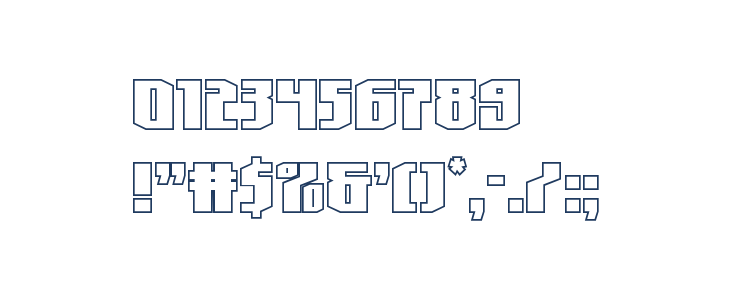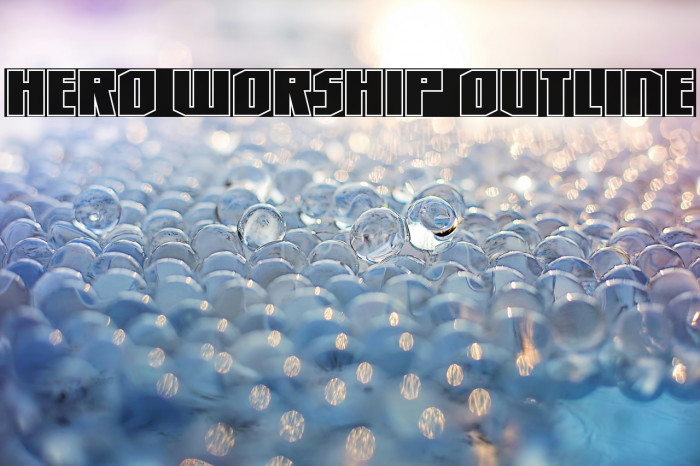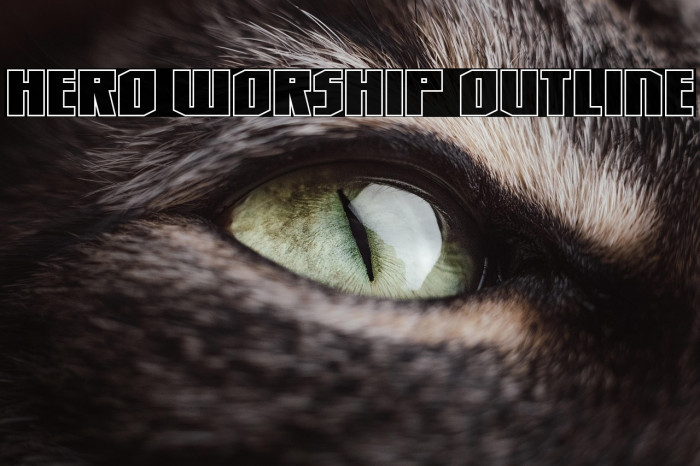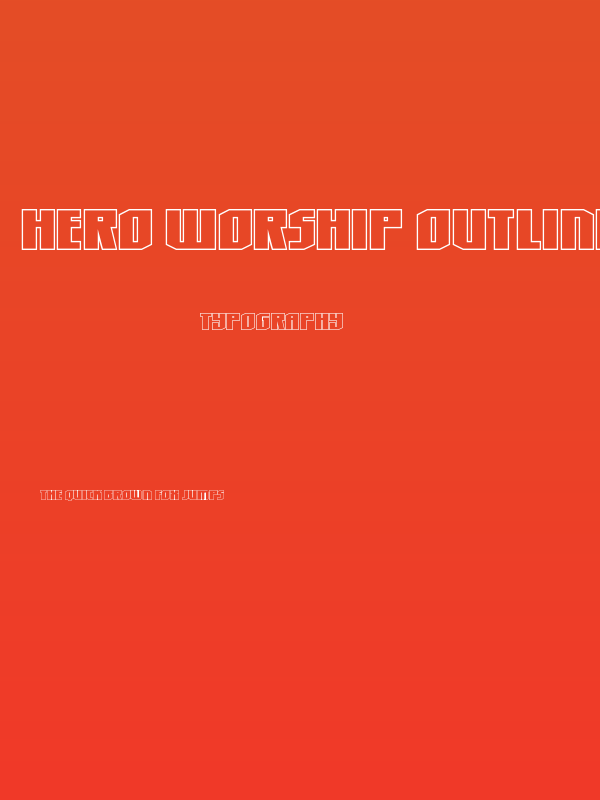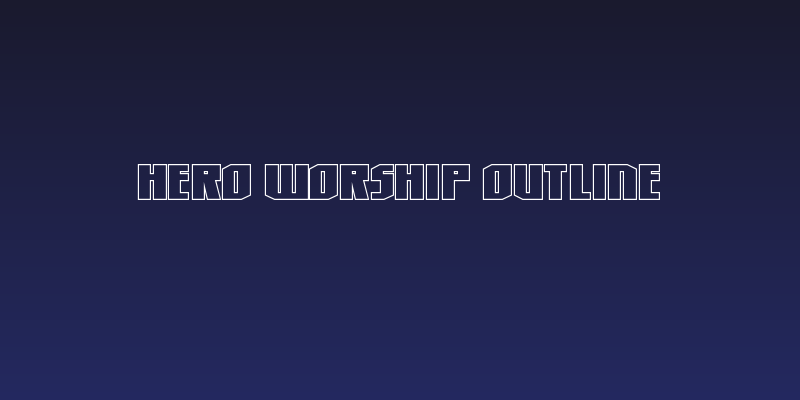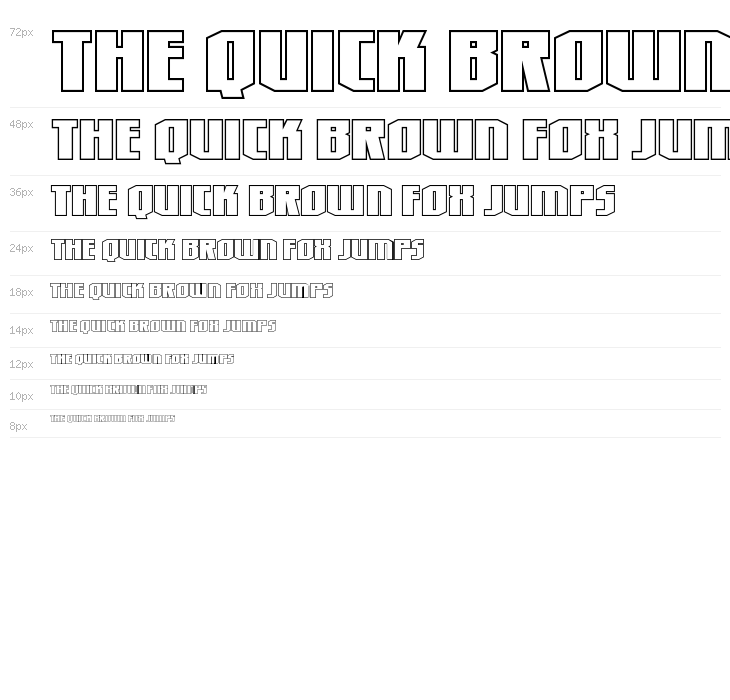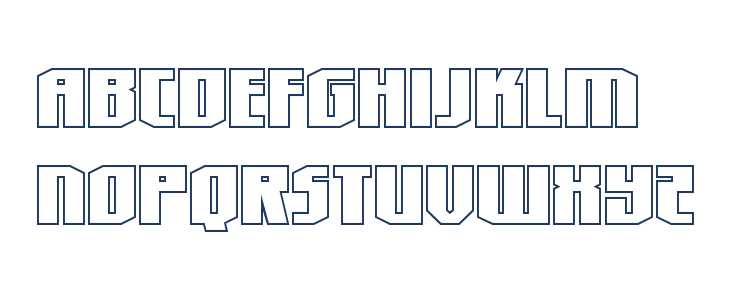
Hero Worship Outline Font
Hero Worship Outline Description
This font features a bold, geometric outline style that emphasizes strong, angular lines and a modern aesthetic. Each character is constructed with a uniform thickness, creating a cohesive and striking appearance. The uppercase letters are particularly dominant, with a block-like structure that conveys strength and stability. The numerals and special characters maintain the same bold outline, ensuring consistency across all glyphs. This font's design is ideal for making a visual impact, with its clear and legible form that stands out in any context. The spacing between characters is balanced, providing a clean and organized look that enhances readability.